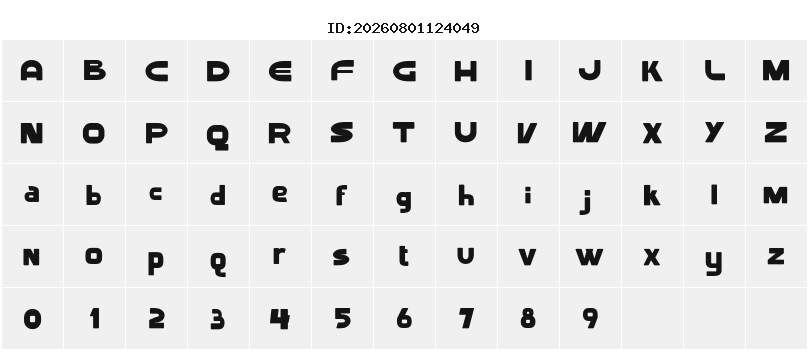
LGF TERRA DEMO Preview
• Font Name: LGF TERRA DEMO
• Designer: Manuel Lage
• Description: PRYECT2012 Regular is a font by , designed by Manuel Lage in 2012.
About LGF TERRA DEMO.otf
LGF TERRA DEMO.otf is a modern, elegant sans-serif font designed for ultimate readability and visual harmony. Perfect for branding, headlines, web design, and print materials.